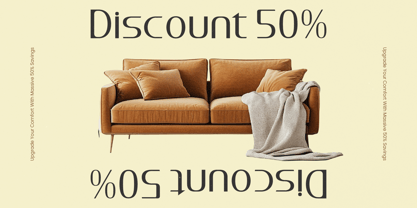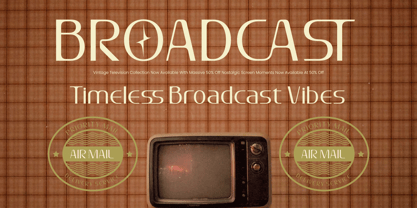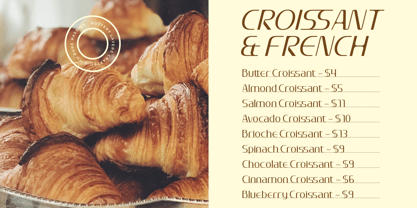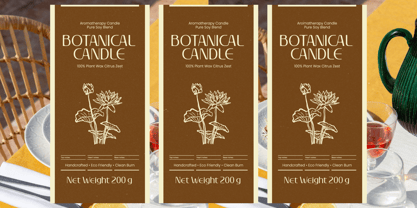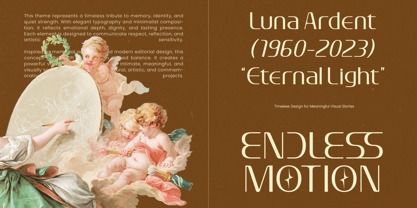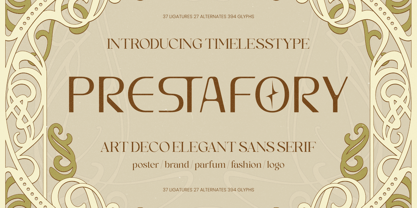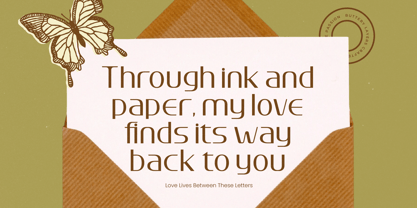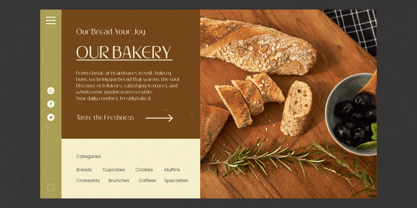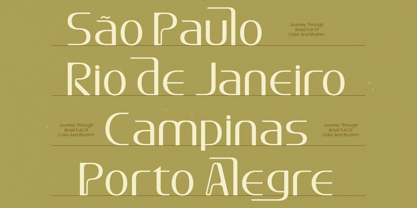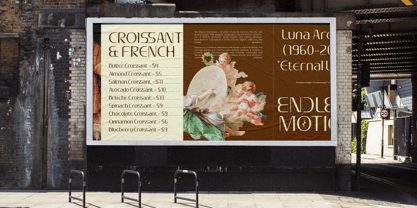
Prestafory
by Timelesstype Studio
The Prestafory Font Family was designed by Heru Utama Putra and published by Timelesstype Studio. Prestafory contains 2 styles and family package options. More about this family
Prestafory is an elegant Art Deco–inspired sans serif typeface designed to deliver timeless sophistication with a refined architectural structure. Featuring 37 ligatures, 27 alternates, and 394 glyphs, this display font combines geometric precision with graceful decorative influence, creating a perfect balance between vintage glamour and modern luxury branding. Its clean yet expressive letterforms make it ideal for premium logos, fashion identities, perfume packaging, editorial headlines, posters, and high-end brand presentations. Prestafory brings a distinctive Art Deco elegance that elevates typography into a statement of class, prestige, and visual authority.